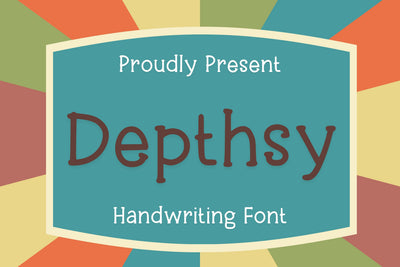
Depthsy Font
Depthsy is a Cute typewriter and Handwriting font. Its casual and joyful style makes it appear wonderfully down to earth, readable and, ultimately, incredibly versatile.